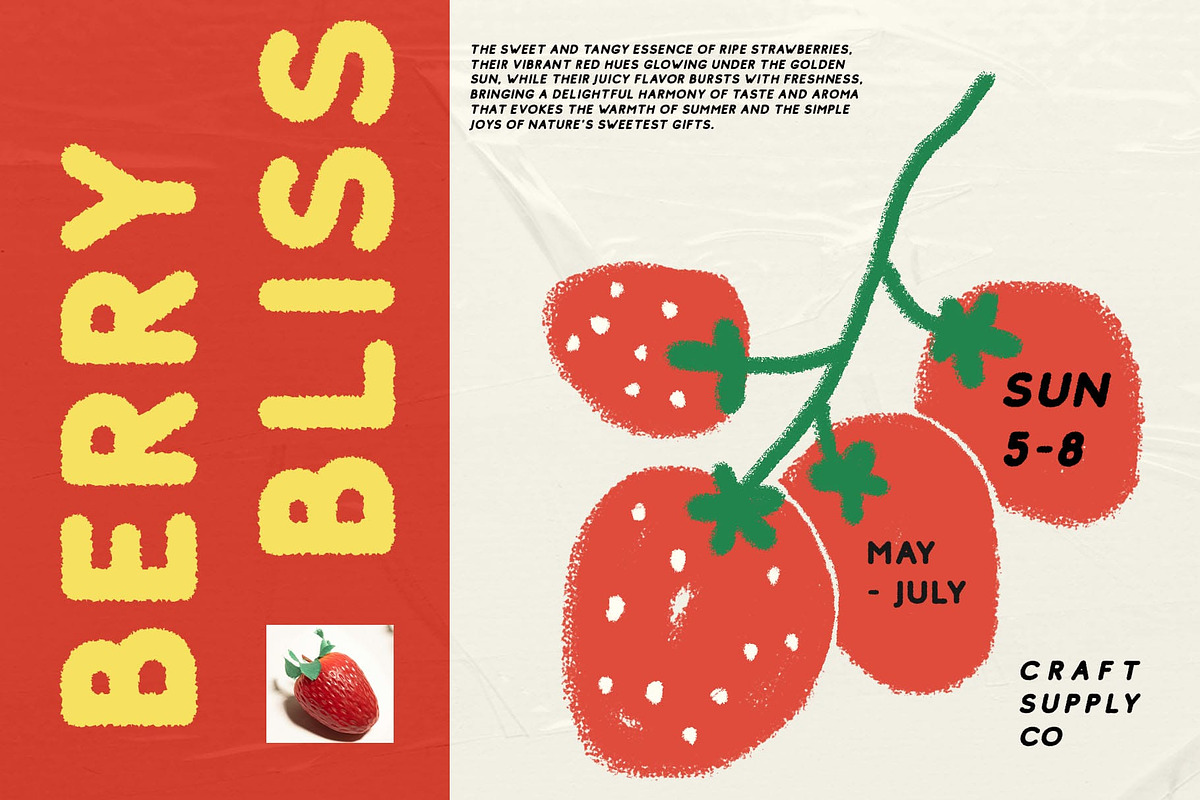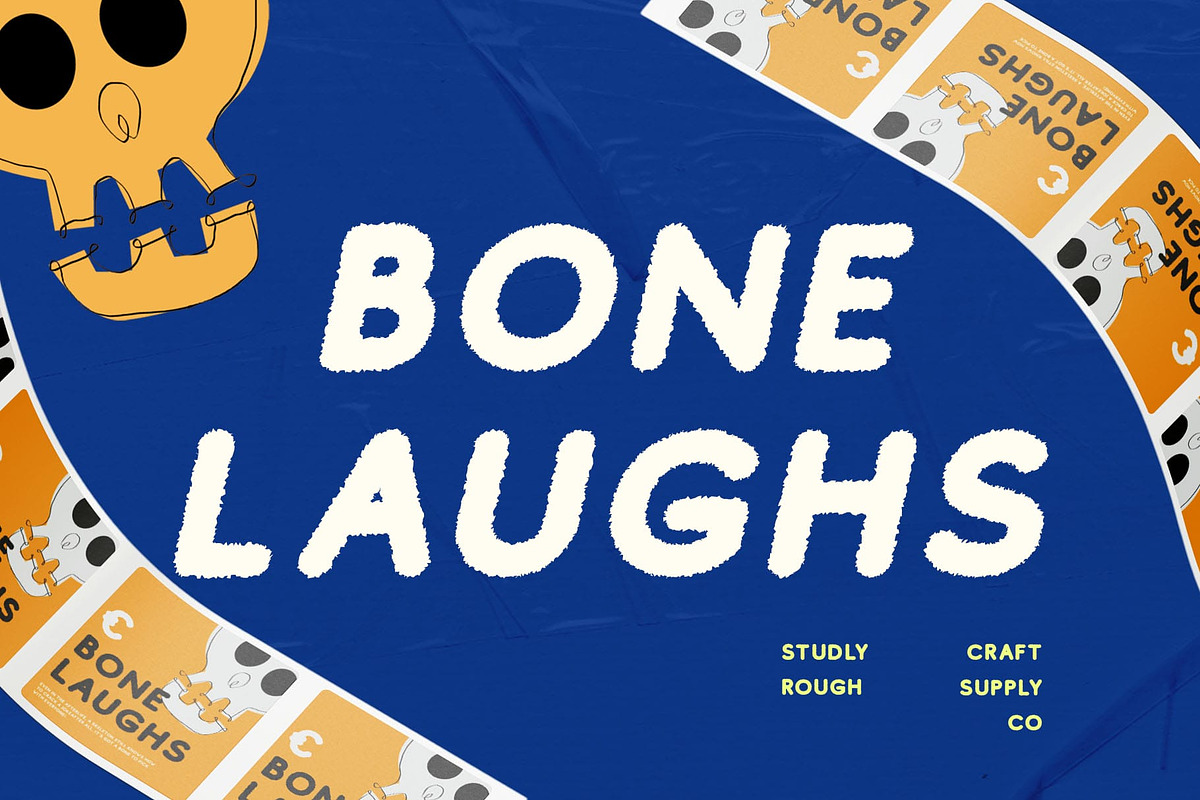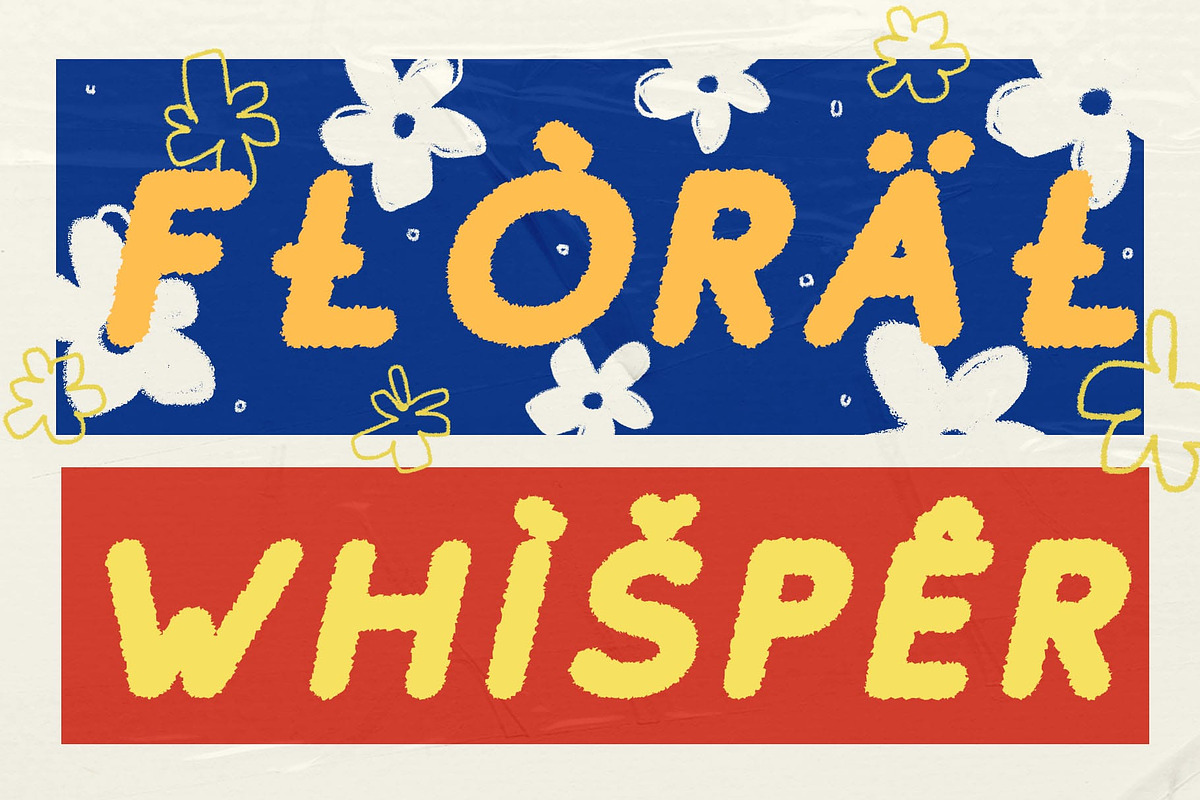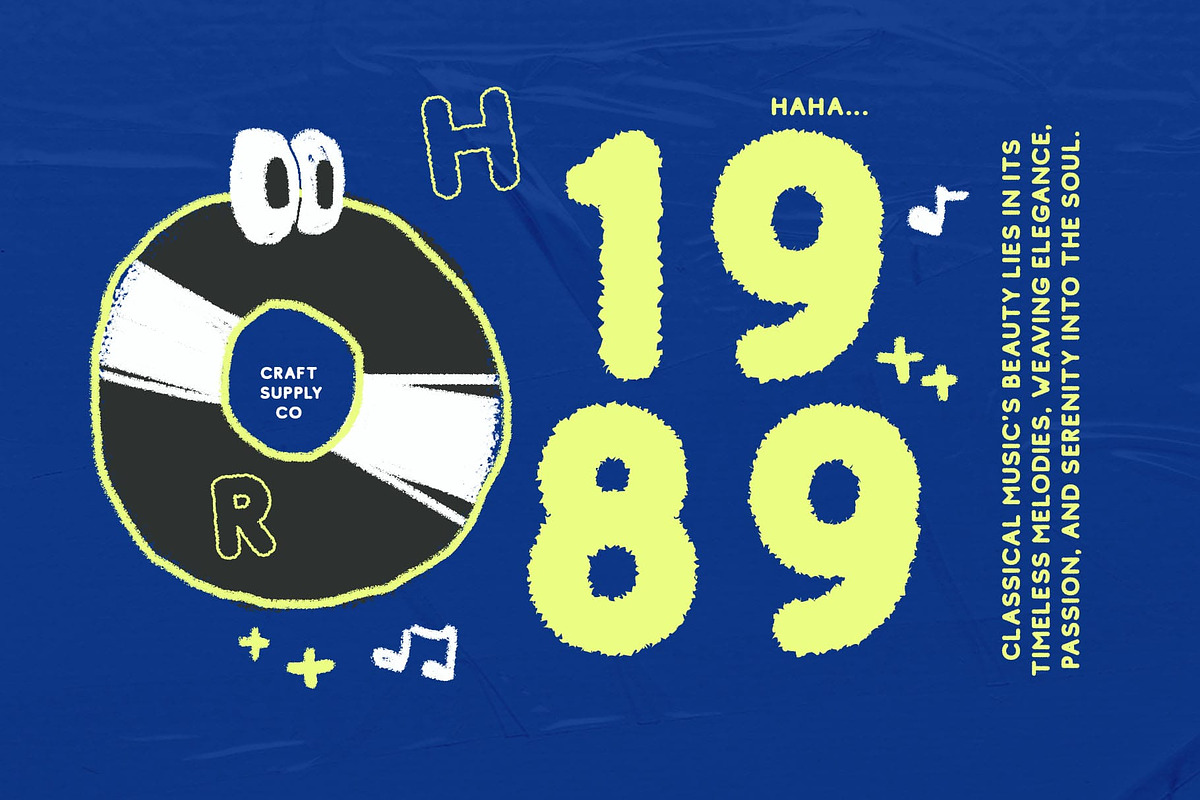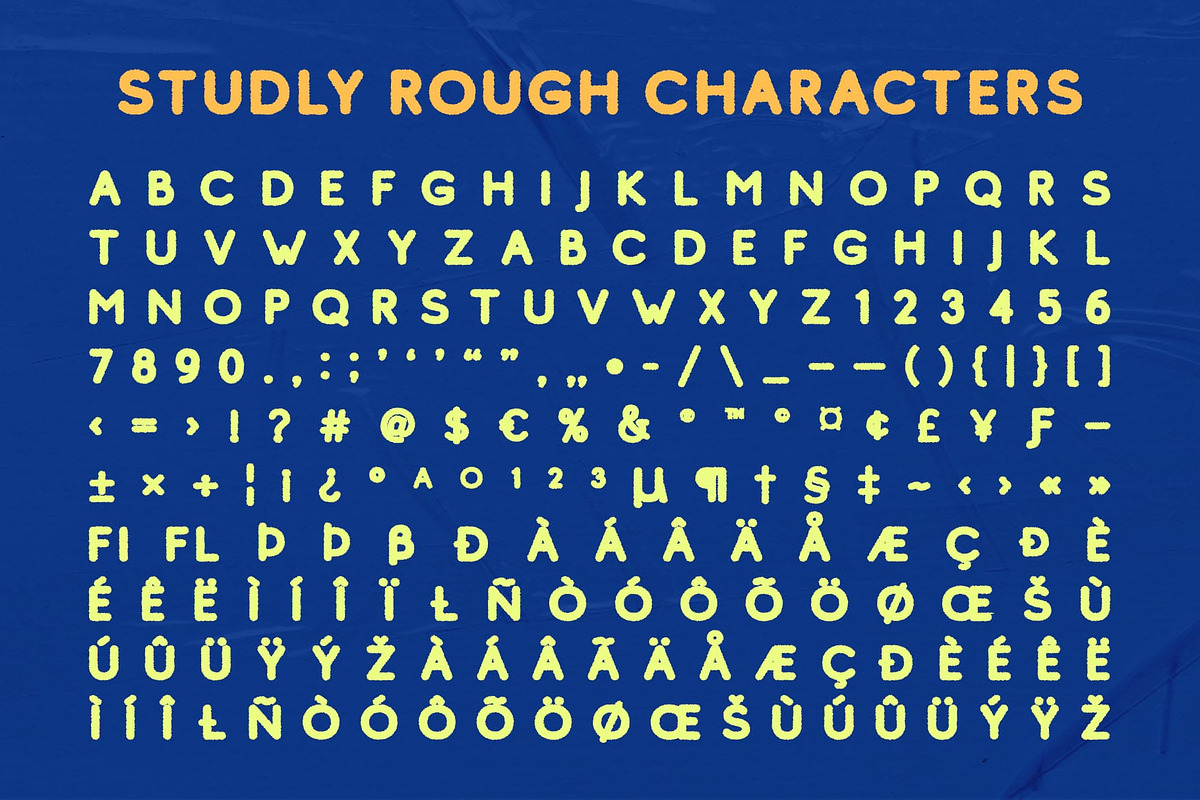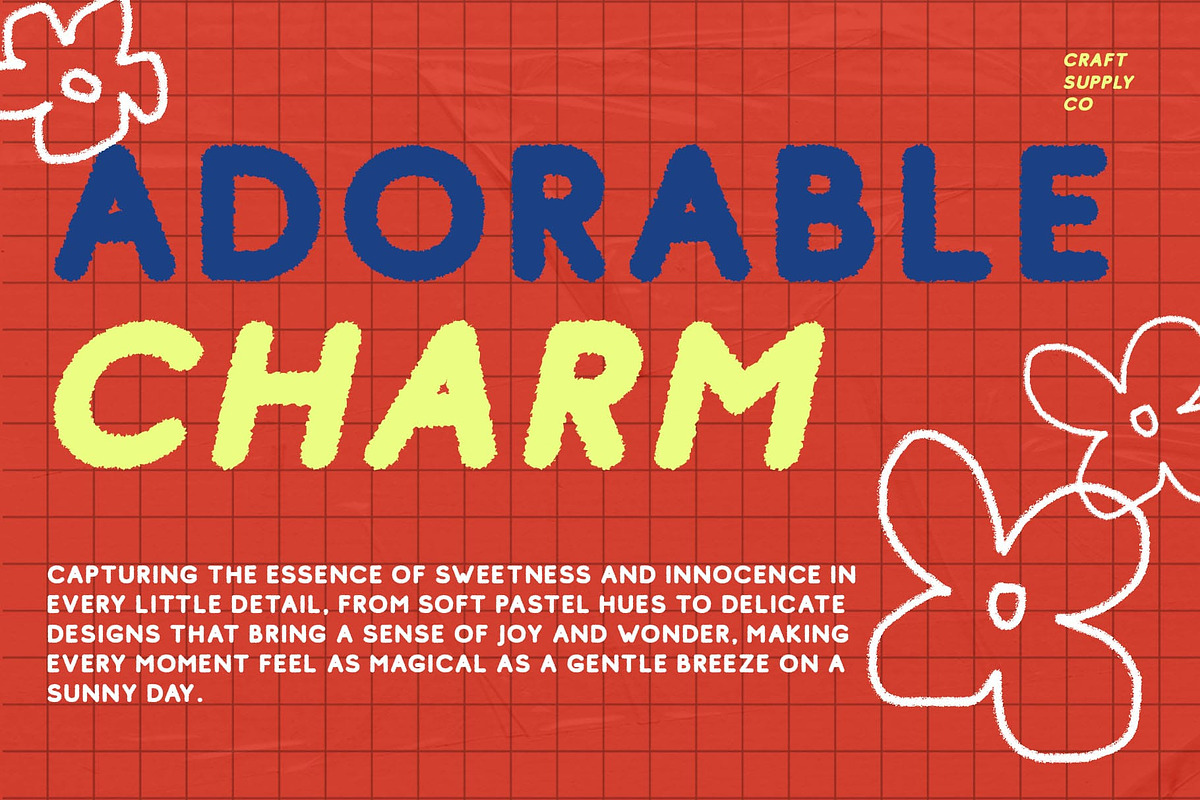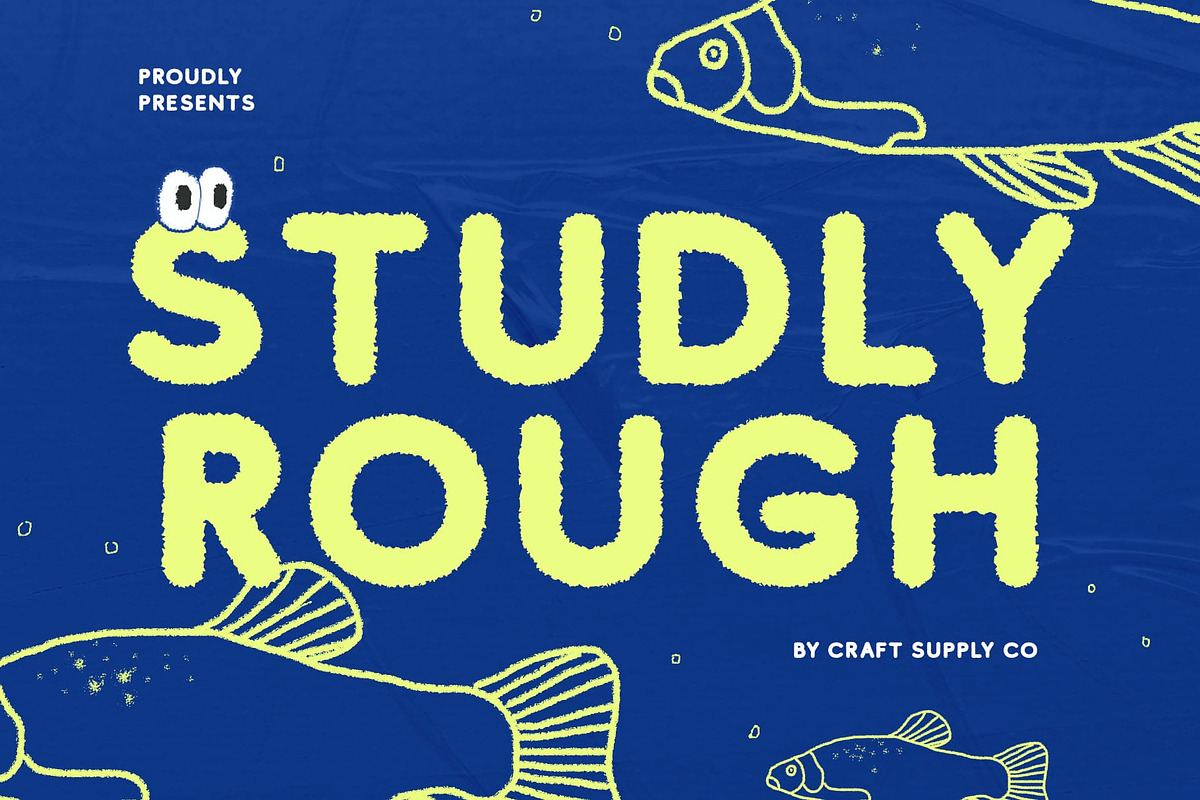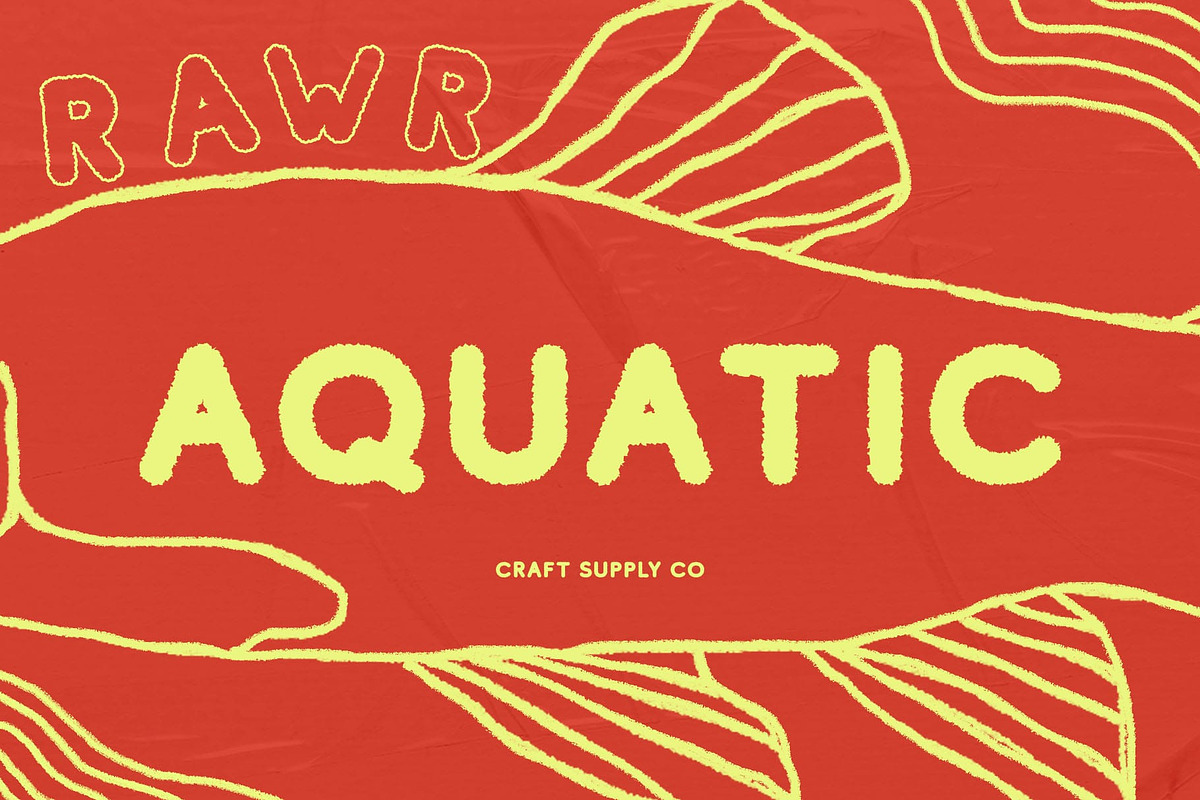
Studly Rough
Studly Rough – A Playful Sans Font with Bold Personality
Bold, Rounded, and Full of Energy Studly Rough is a modern sans-serif font with a bold and rounded shape, designed to bring a cheerful, funky, and playful vibe to any project. Its soft yet strong letterforms make it approachable and dynamic, making it an excellent choice for branding, posters, and packaging that need a lively and engaging feel.
Rough Texture for a Unique Character What sets Studly Rough apart is its subtle rough effect, which adds a handcrafted, organic touch to its bold structure. This texture enhances the font’s warm and friendly personality, giving it a more authentic and expressive look.
Perfect for Fun and Eye-Catching Designs With its funky and playful aesthetic, Studly Rough is ideal for brands that embrace creativity and individuality. Whether for kids’ products, fun packaging, social media graphics, or bold editorial layouts, this font adds a joyful and energetic charm to any application. Its rounded, full-bodied form ensures a welcoming and visually captivating style.
A Must-Have for Playful Branding Studly Rough is more than just a font—it’s a statement of fun, personality, and creativity. Its bold yet friendly design, combined with its rough, organic texture, makes it the perfect choice for projects that demand a playful, bold, and unforgettable look.
- Studly Rough Regular
- Studly Rough Italic